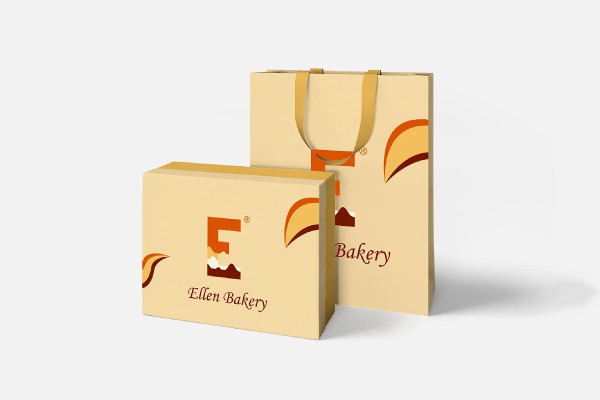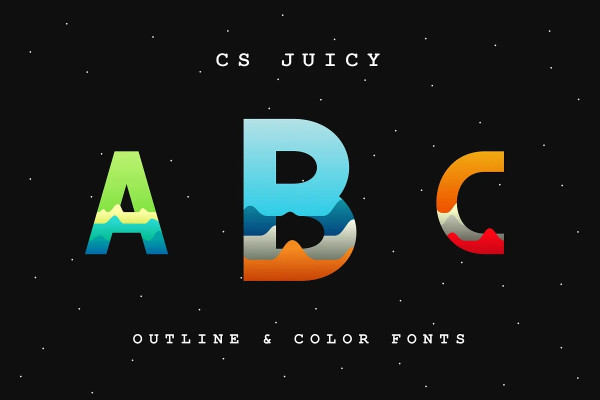
CS Juicy Font
CS Juicy Font is a font that composed by several parts that can be easily converted into solid path and replaced color. You can easily combine some colors you want into 1 alphabet.
CS Juicy by Craft Supply Co. I really like the diversity of colors. I also like something modern. I try to combine these 2 things into a work opentype SVG font. Then ….. here it is 🙂 an excellent SVG opentype font for display purposes. It would be a perfect choice to design logos, posters, billboards, printable papers, magazine covers, book, t-shirt, and many more.